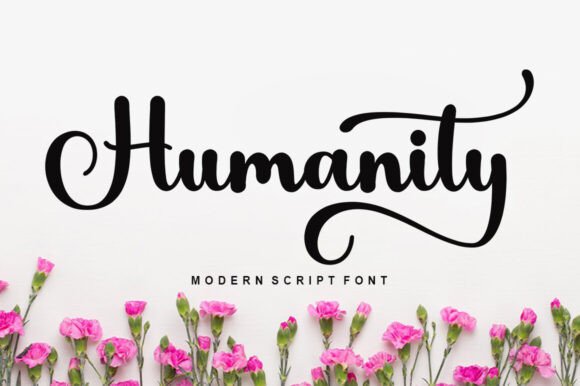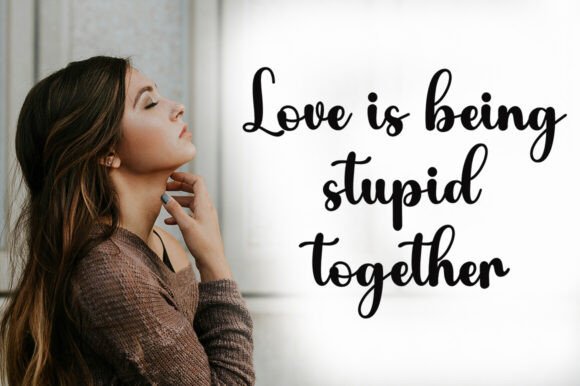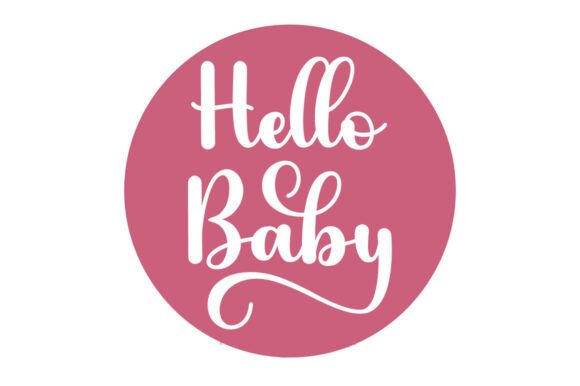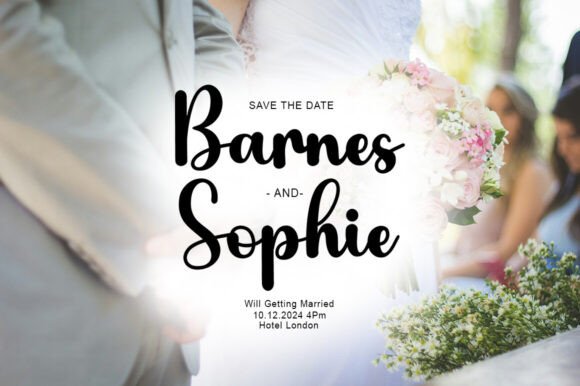
Humanity Font: Elegant Handwritten Script for Wedding & Logo Design
About the Humanity Font
Add a touch of class to your work with the Humanity Font, a truly exceptional typeface. Humanity is a stylish and very fancy handwritten font. This font looks stunning on wedding invitations, thank you cards, quotes, greeting cards, logos, business cards, and every other design that needs a handwritten touch.
Humanity’s elegant, yet slightly informal style makes it ideal for branding projects requiring a touch of handwritten personality, particularly those related to stationery, boutique businesses, or artisanal products. It excels in headlines, short text blocks, and logos, adding a sophisticated handwritten flair. However, its decorative nature makes it less suitable for body text or UI elements where readability is paramount. Avoid using it for large blocks of text or in situations demanding high legibility.
Pairing Humanity with a clean sans-serif like Montserrat or Open Sans provides a strong contrast, balancing its organic script form with modern clarity. For a more traditional feel, consider pairing it with a classic serif such as Garamond or Lora. These pairings offer versatile combinations, allowing for clear hierarchy and visual appeal in various design applications.
The font’s overall personality is sophisticated and approachable, conveying both elegance and a friendly, personal touch. Its handwritten aesthetic lends itself to brands that value authenticity and craftsmanship.